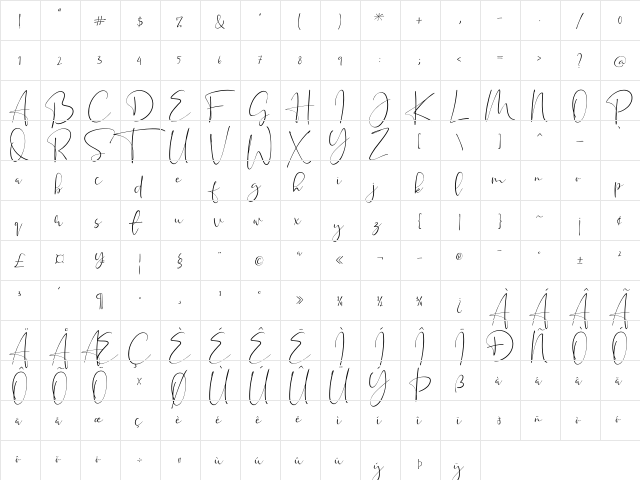
Sweet Madelyn Regular
| Foundry | Typesthetic Studio - Hamzah Muhamad Ihsan - Jakarta (INA) |
| Designer | Typesthetic Studio - Hamzah Muhamad Ihsan - Jakarta (INA) |
Design Context for Sweet Madelyn Typeface
Sweet Madelyn is a composed and adaptable typeface that performs quietly and consistently across a wide range of design contexts.